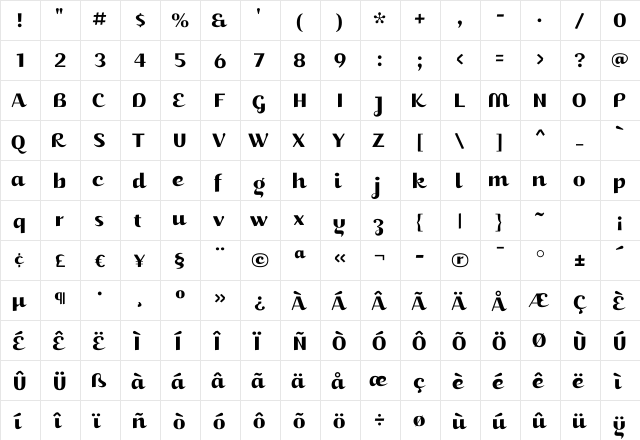
JuicyRegular Regular
Design Context for JuicyRegular Typeface
JuicyRegular is a composed and adaptable typeface that performs quietly and consistently across a wide range of design contexts.
Pro Tip: Use JuicyRegular in both headline and body roles to test its range before committing to a single application.